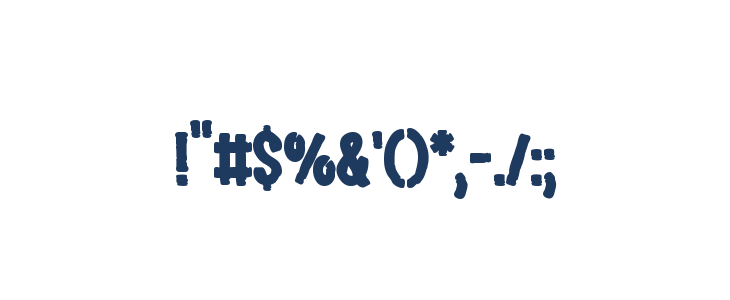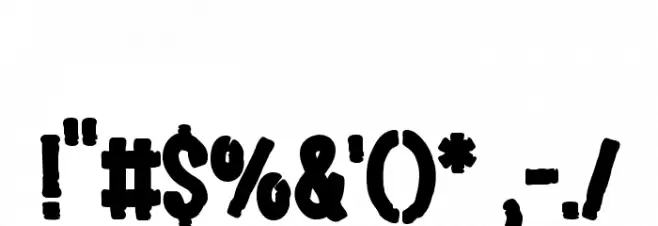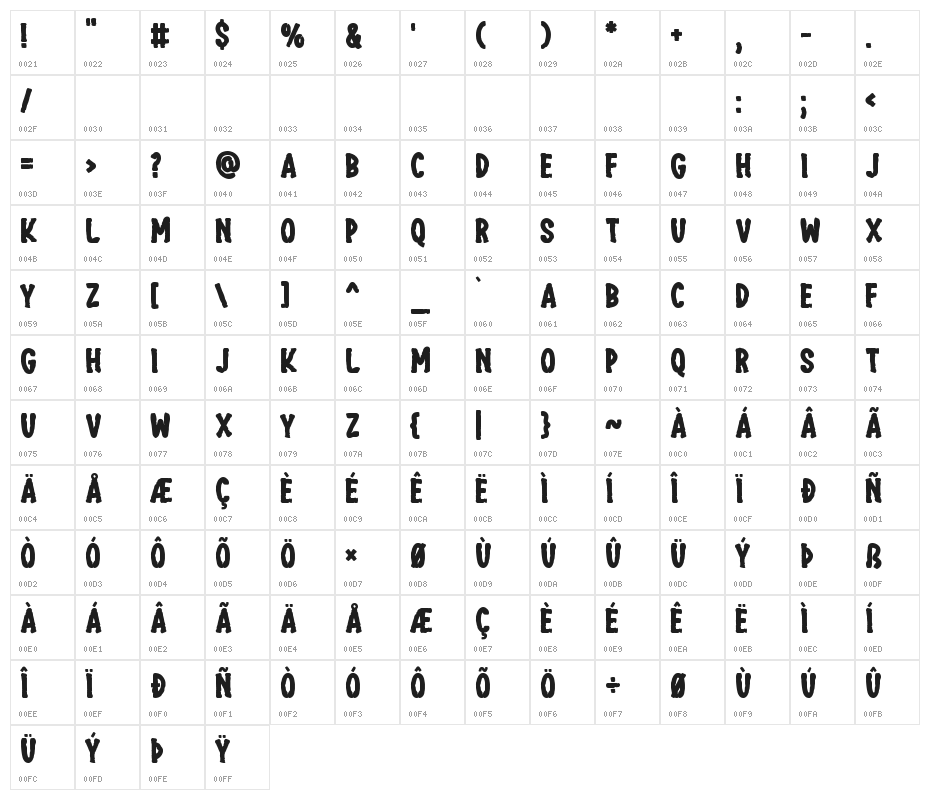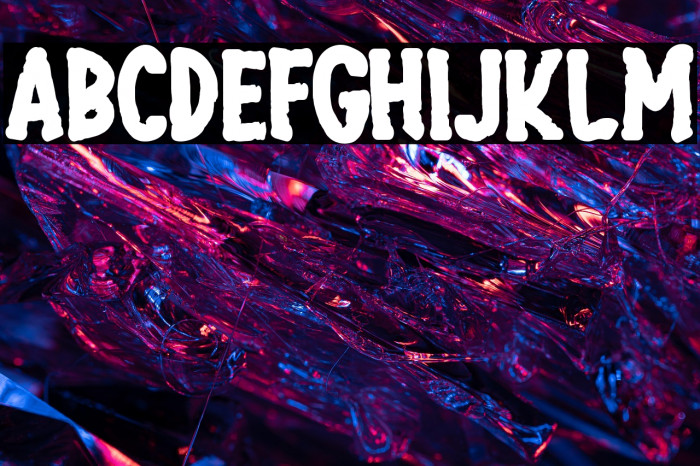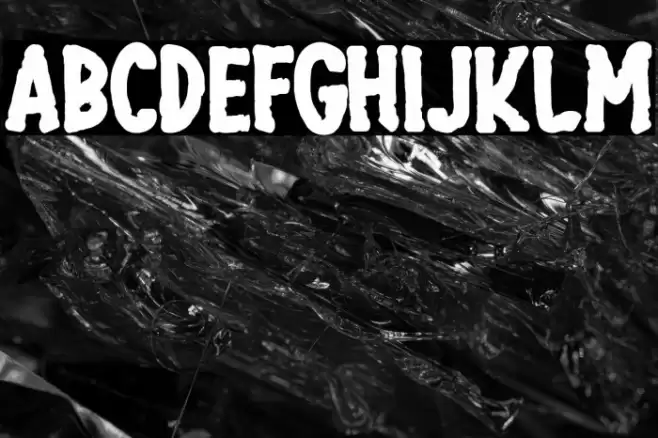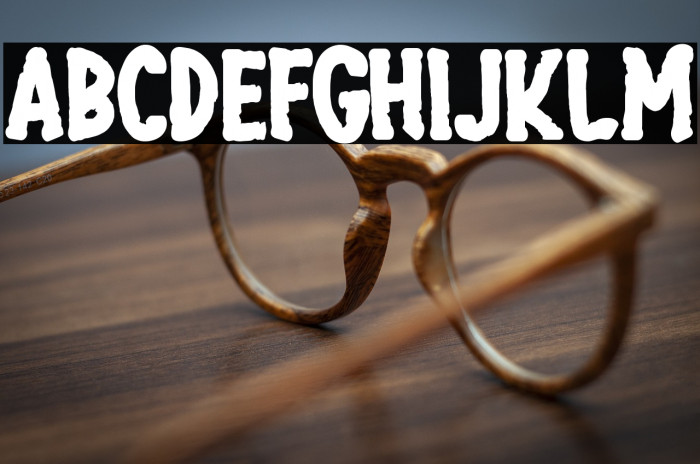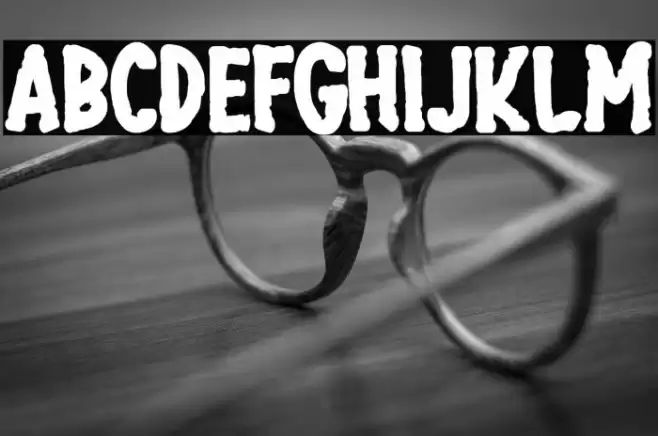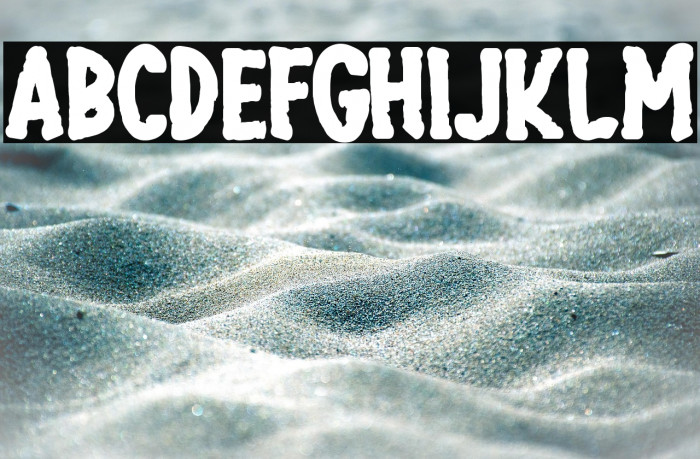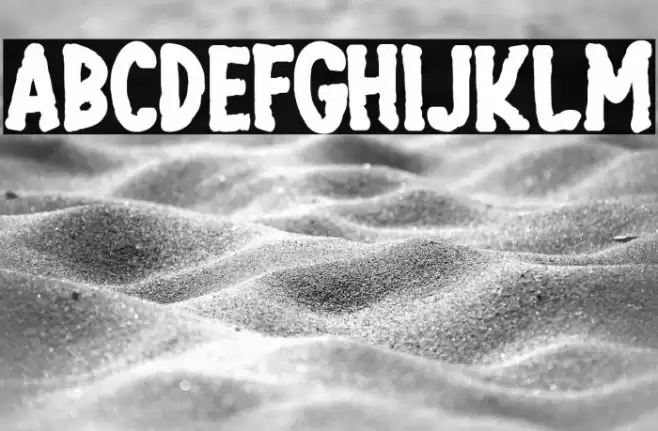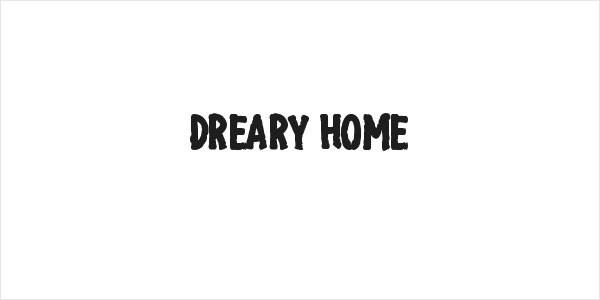
Dreary Home Font
Dreary Home Description
This font exhibits a bold and expressive style, characterized by its thick, uneven strokes that give it a hand-painted appearance. The letters have a rugged, textured look, adding a sense of dynamism and energy. The uppercase and lowercase letters maintain a consistent style, with slightly irregular edges that enhance its handcrafted feel. The numerals and special characters follow the same aesthetic, ensuring a cohesive look across all elements. This font is ideal for projects that require a bold statement and a touch of artistic flair.
| Proposed Projects | Perfect for posters, album covers, branding projects, and any design needing a bold, artistic touch. |